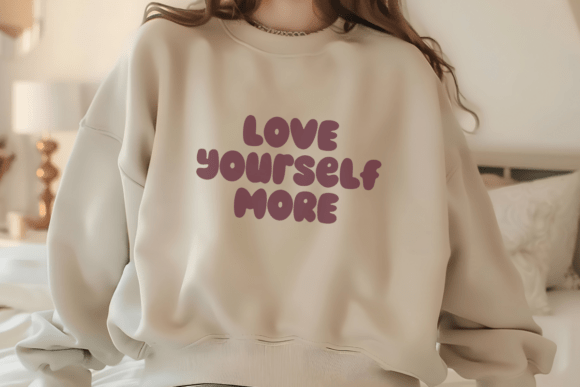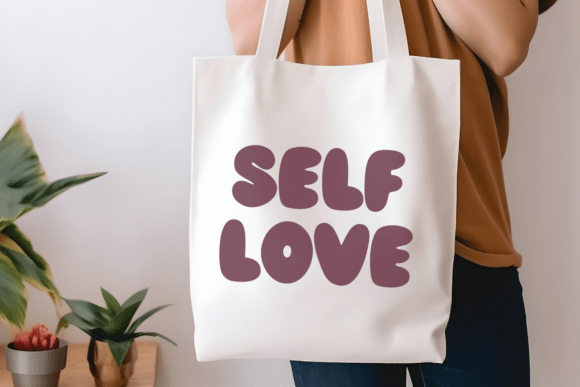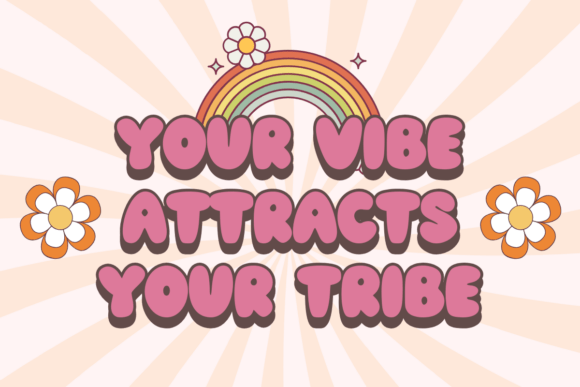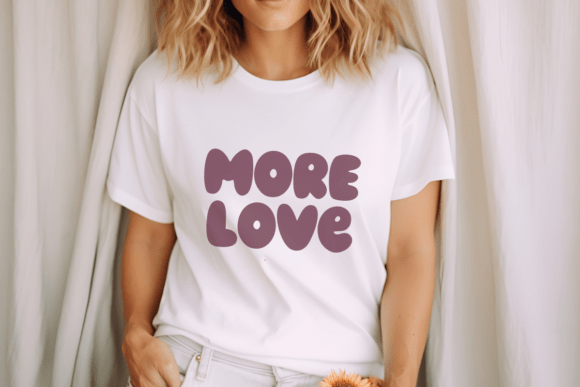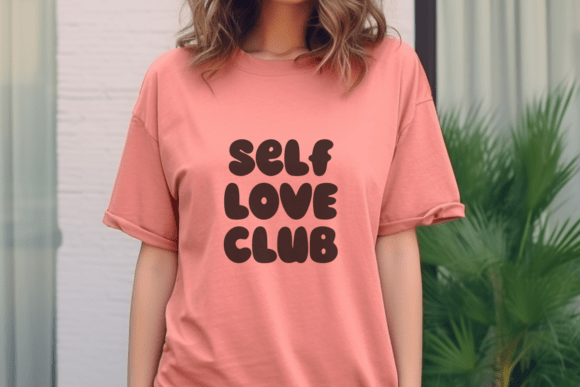
Introduction to Mindful Living Font
Mindful Living is a cute pretty bubble retro font.
This font is perfect for cricut projects, logos, shirts, svg files, planners, stickers, quotes, social media and more .
Key Features of Mindful Living Font
Why Choose Mindful Living Font?
Mindful Living Font offers exceptional quality and versatility, making it a valuable addition to your design toolkit. Whether you’re creating for personal projects or commercial use, Mindful Living Font delivers professional results.